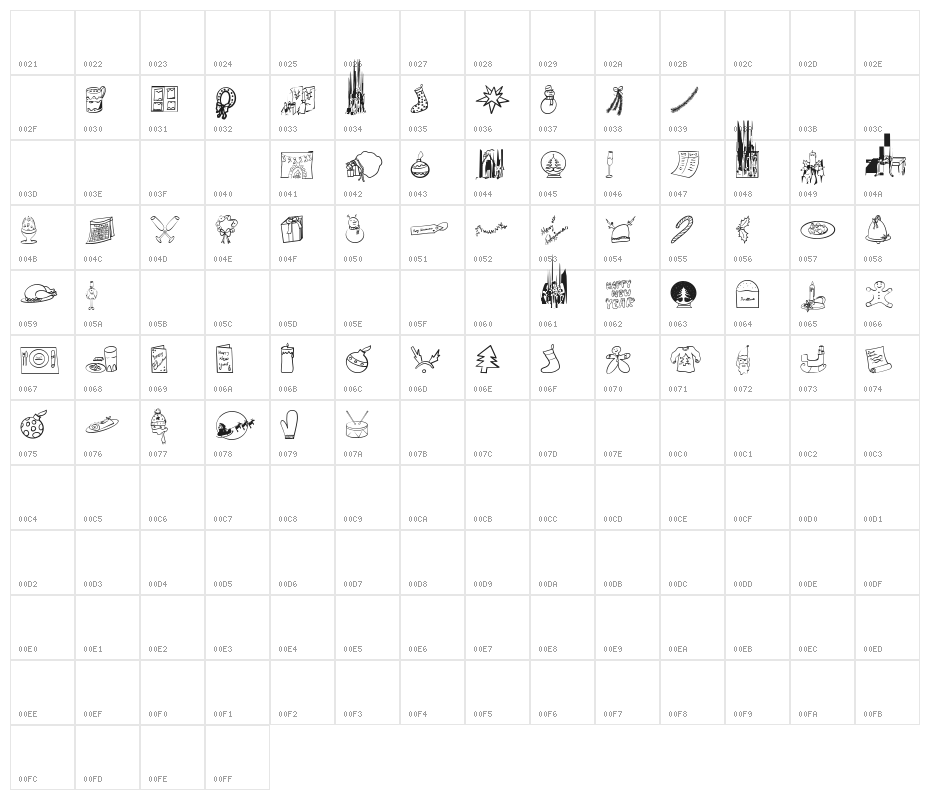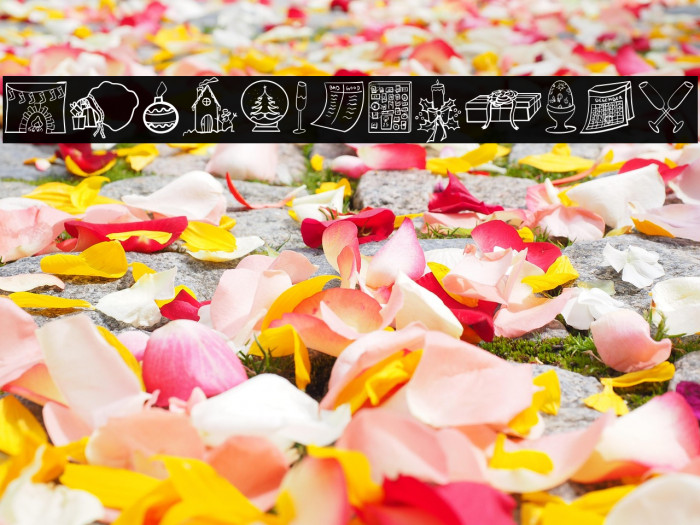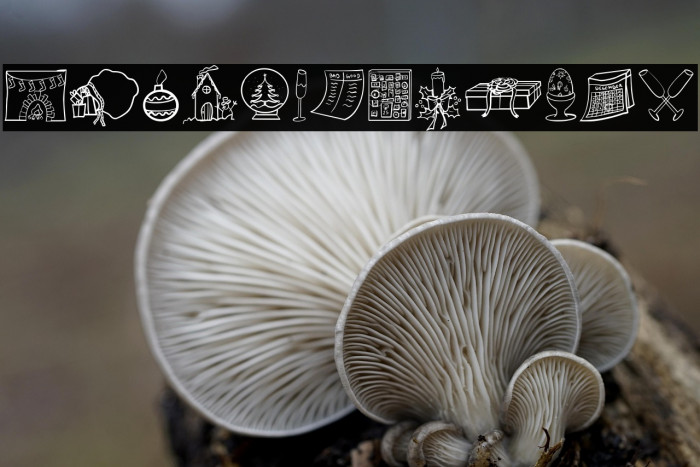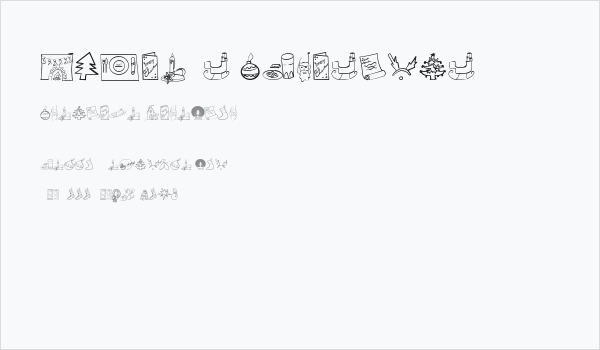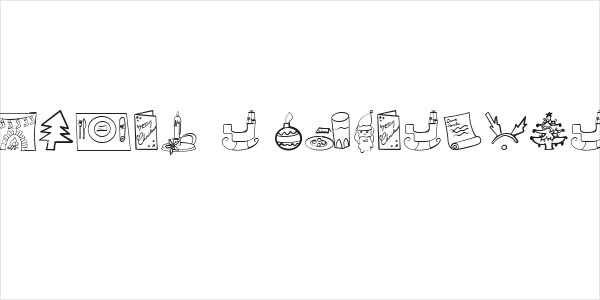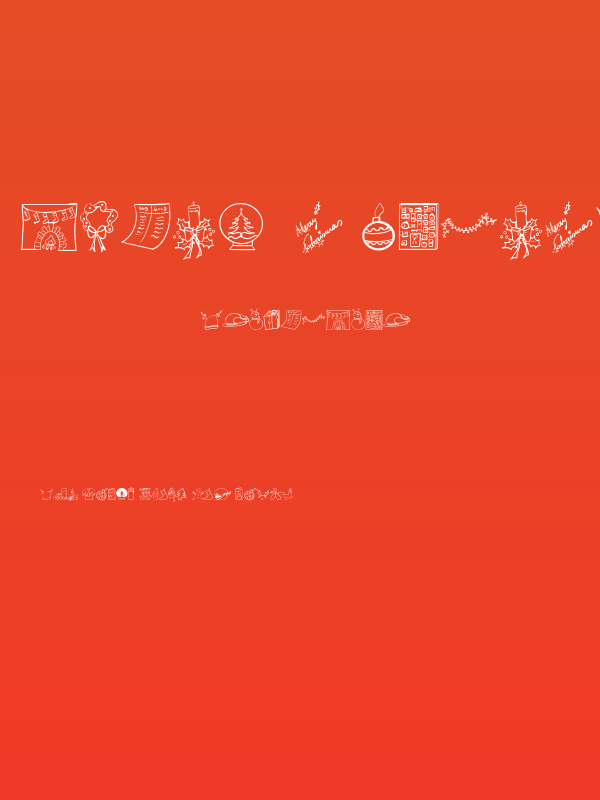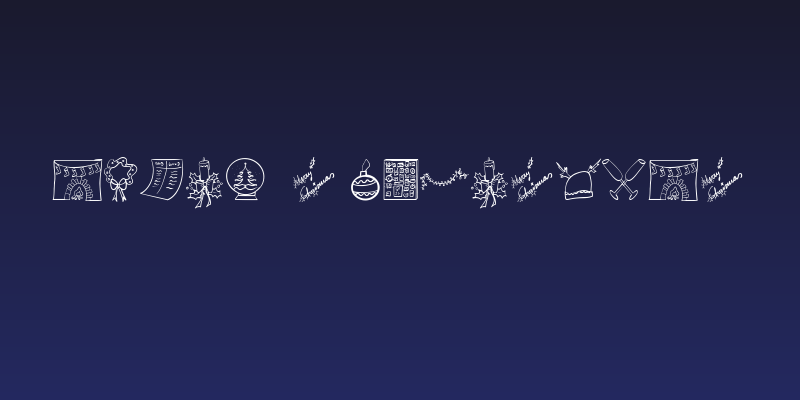
Angie's Christmas Font
Angie's Christmas Description
| Overall Style | Decorative, Whimsical, Festive |
| Use Case | Decorative elements, Themed illustrations, Holiday branding |
| Proposed Projects | Holiday greeting cards, festive invitations, seasonal posters, digital scrapbooking, social media graphics, children's crafts. |